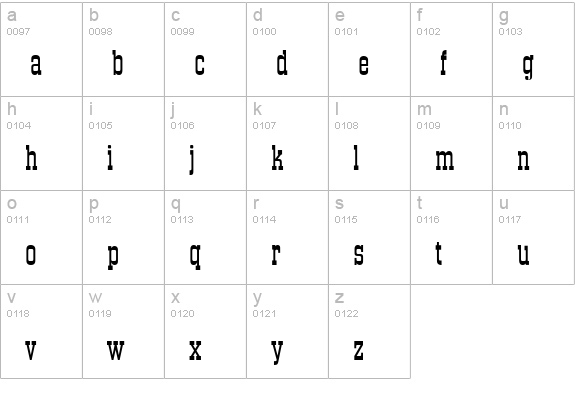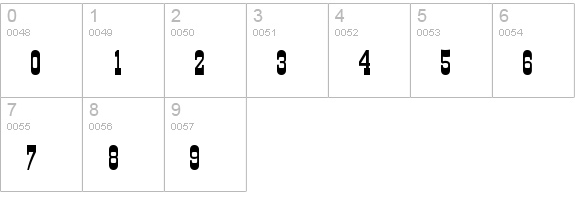
Old Town Regular is the standard, neutral variant in the Old typeface family \xE2\x80\x94 well suited to general body text, paragraphs, and standard typographic work.
Old Town Regular is a classic and elegant serif font that exudes a timeless charm and sophistication. With its clean lines and traditional letterforms, this font is perfect for adding a touch of vintage style to any project. Whether you're designing invitations, branding materials, or editorial pieces, Old Town Regular will bring a sense of refinement and class to your work. The best part is, Old Town Regular is available for free download at FontsMarket.com. You can easily incorporate this stylish font into your designs without any cost, making it a valuable resource for both personal and commercial projects. Download Old Town Regular today and elevate your creations with its distinctive and enduring appeal.